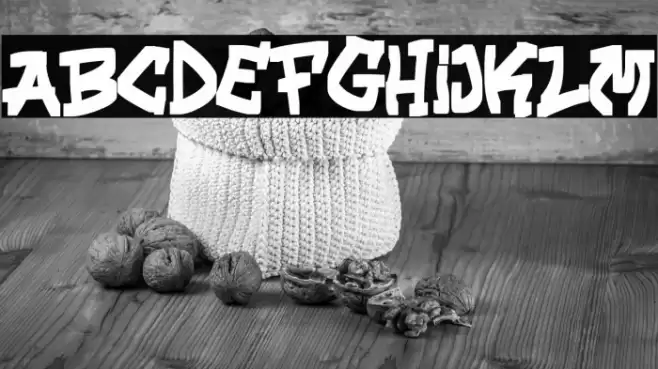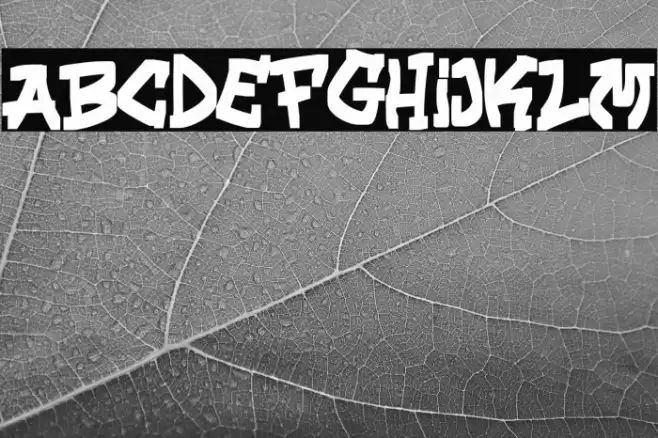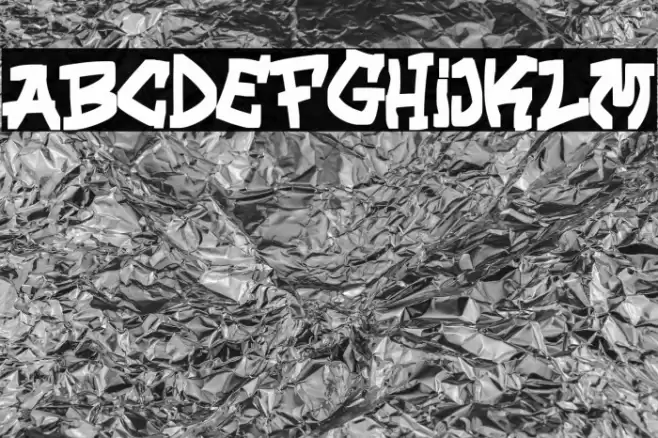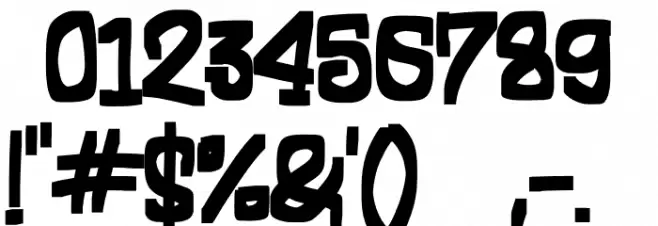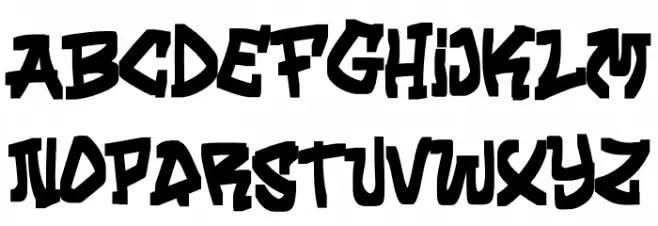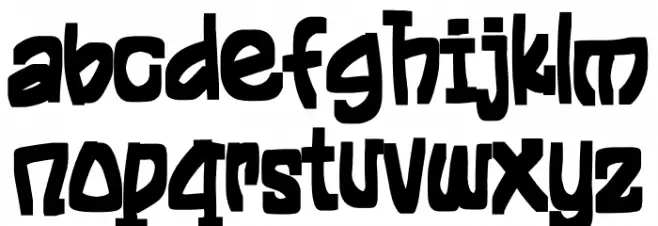
Street Hawk Regular Font
Street Hawk Regular Description
A bold, playful display font with irregular, hand-drawn letterforms and exaggerated curves, giving it a graffiti-inspired, urban feel. The characters are wide with tight spacing and high contrast between thick and thin strokes.
Bold, graffiti-style display font with playful, irregular shapes from Uncategorized fonts.
- Font: Street Hawk Regular
- Proposed Projects: Streetwear branding, poster design, music album covers, skateboarding graphics, event flyers.
- Width: Expanded
- Character Spacing: Tight
- Contrast: High
- Overall Style: Urban, Graffiti, Playful, Decorative
- Use Case: Headlines, Posters, Logos, Event Flyers
Street Hawk Regular UPPERCASE
Street Hawk Regular LOWERCASE
Street Hawk Regular OTHER CHARS